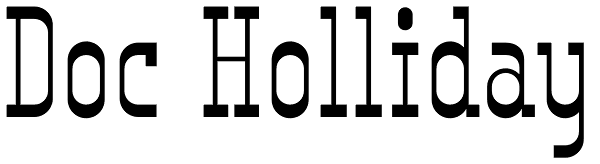
Doc Holliday
Doc Holliday is an original design by Alex Kaczun. It's a classic revival of a Western-style slab serif font extended to include Eastern European Latin and Baltic languages. Doc Holliday has a mid to late 1800s wood type feel, and one can envision a...